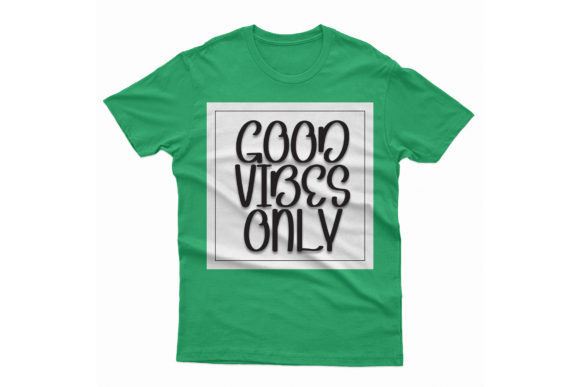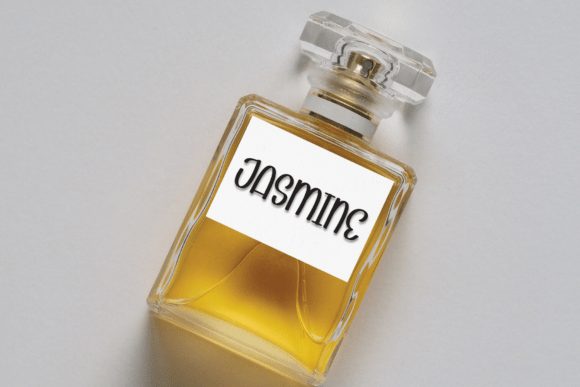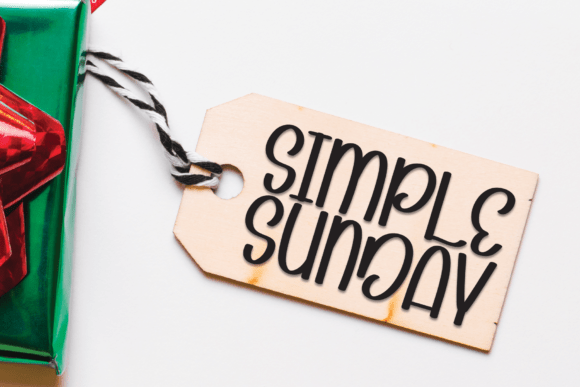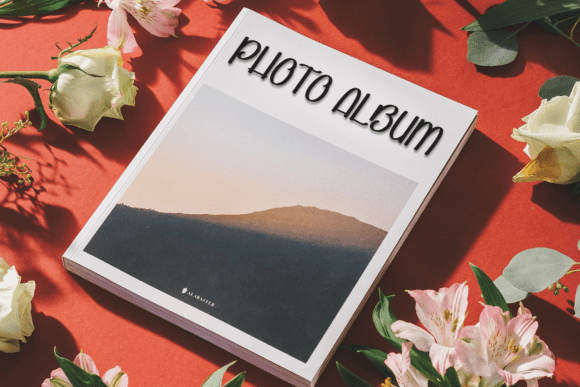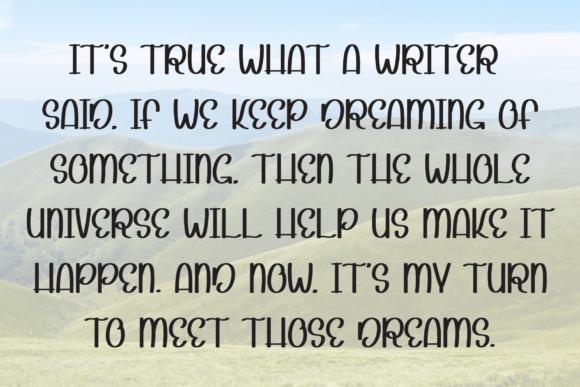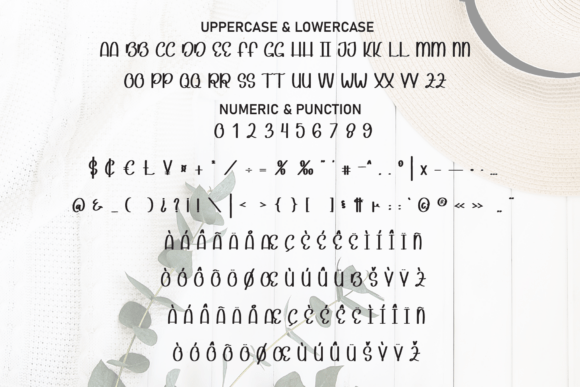
The Perfect Blend of Chic and Casual: Unveiling the Boho Sunday Font
Imagine strolling through a bustling market on a lazy Sunday morning, surrounded by vibrant colors and eclectic patterns. The sights and sounds are a feast for the senses, and you can’t help but feel inspired by the creative energy that fills the air. For designers, this feeling is often the spark that ignites a new project, and it’s exactly this vibe that the Boho Sunday Font embodies.
Designed to add a touch of relaxed sophistication to your designs, the Boho Sunday Font is a versatile and approachable display font that’s perfect for packaging, posters, and social media graphics. With its clean lines and neat structure, it’s a valuable addition to any designer’s toolkit, offering a fresh and friendly look that’s both charming and clear.
Whether you’re working on a branding project or creating a social media campaign, the Boho Sunday Font is sure to bring a touch of effortless elegance to your designs.
Boho Sunday Font Key Features
- Font Family: Boho Sunday is a unique, hand-drawn font with a bohemian and vintage feel.
- Font Size: The font comes in 5 different font sizes, ranging from 18 points to 72 points, making it suitable for various design applications.
- Resolution: Boho Sunday is designed to be resolution-independent, ensuring that it looks great at any resolution or screen size.
- Unique Characteristics: The font features intricate, hand-drawn details, swashes, and ornaments that add a touch of elegance and sophistication to any design.
- Character Set: The font includes a comprehensive character set, including uppercase and lowercase letters, numbers, punctuation marks, and special characters, making it suitable for various design projects.
Boho Sunday Font Review
When I first laid eyes on the Boho Sunday Font, I was immediately drawn in by its eclectic charm. ✨ The whimsical, handwritten feel of the font is perfect for capturing a free-spirited, bohemian vibe. It’s ideal for designers looking to add a touch of personality to their branding or marketing materials.
Some of the things that really work well for this font include:
- ✨ Its unique, hand-drawn feel adds a human touch to designs
- ✨ The font’s versatility makes it suitable for a wide range of applications, from logos to social media graphics
- ✨ The font’s irregularities and imperfections give it a charming, organic feel
- ⚠️ The font may not be suitable for professional or formal applications, due to its casual, handwritten feel
- ⚠️ Some users may find the font’s irregularities and imperfections difficult to read, especially in smaller font sizes
Overall, I think the Boho Sunday Font is a great addition to any designer’s toolkit. While it may not be suitable for every project, it’s a great choice for designers looking to add a touch of personality and whimsy to their designs.